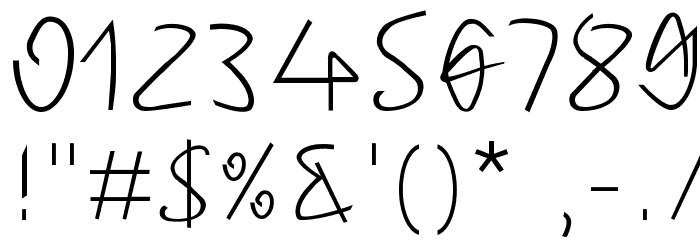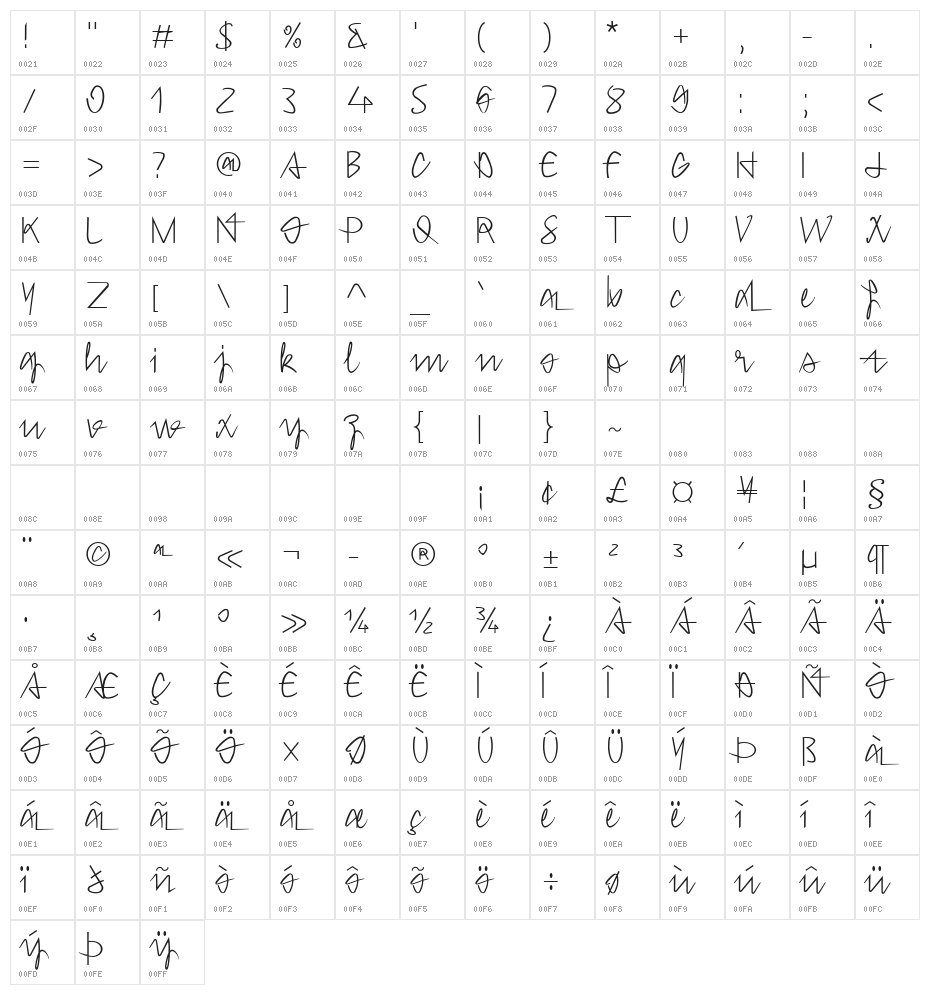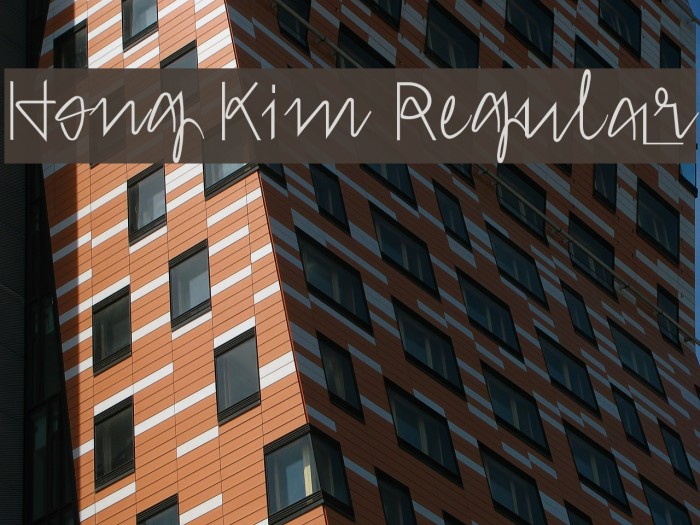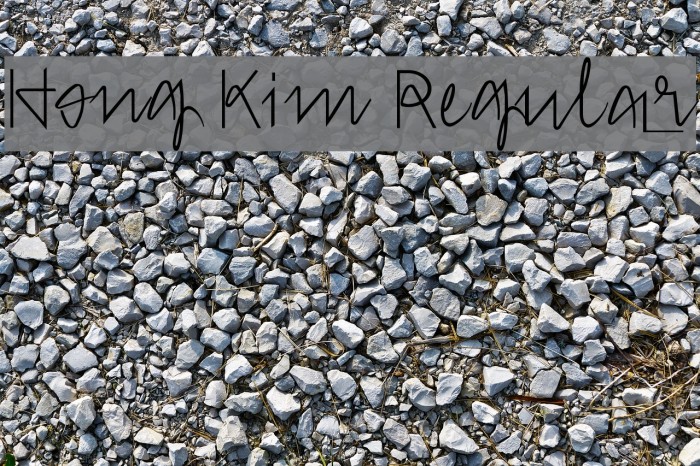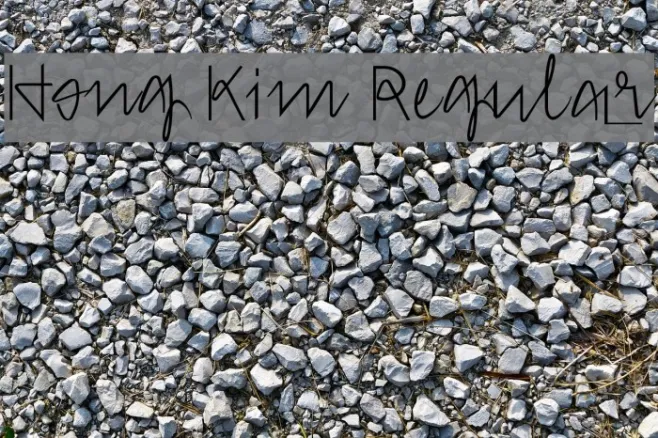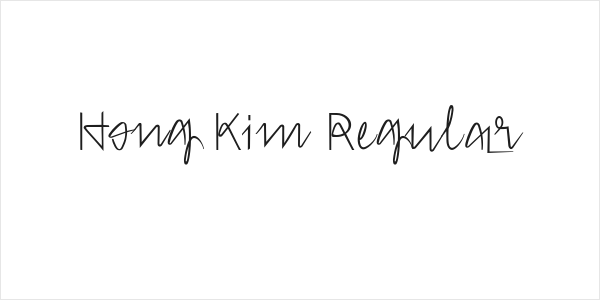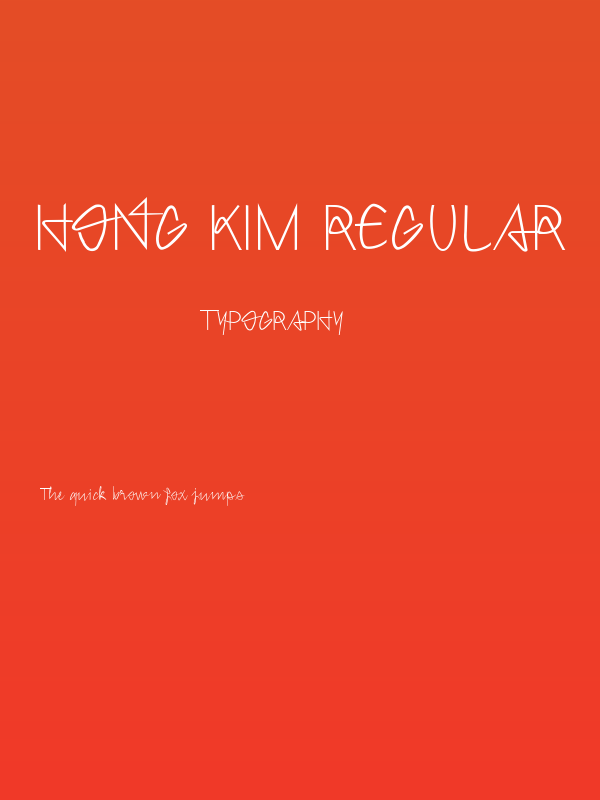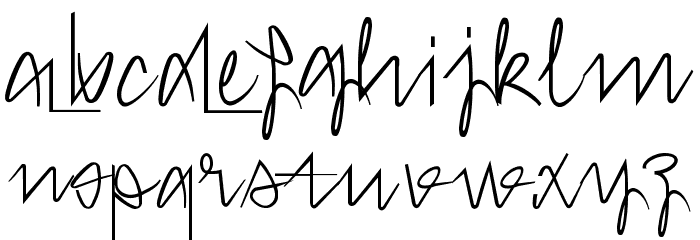
Hong Kim Regular Font
Hong Kim Regular Description
This font features a unique, handwritten style with an artistic flair. The uppercase letters are characterized by sharp angles and a slightly elongated form, giving them a distinct, modern look. The lowercase letters maintain a consistent flow, with some characters exhibiting playful loops and curves. Numbers are designed with a similar aesthetic, maintaining the overall cohesive style. The special characters are creatively integrated, adding to the font's versatility. This font's overall appearance is both casual and sophisticated, making it suitable for a variety of creative applications.
| Proposed Projects | Ideal for creative projects such as invitations, greeting cards, branding, and artistic posters. |